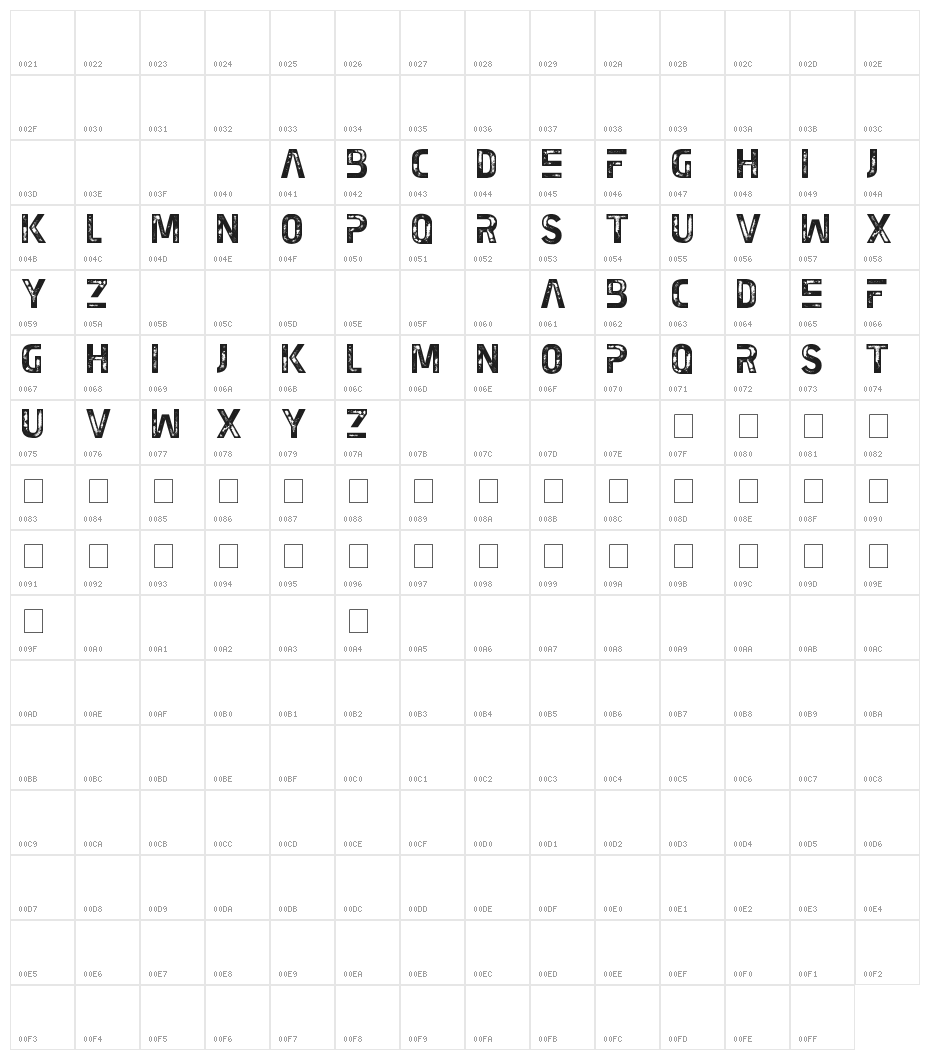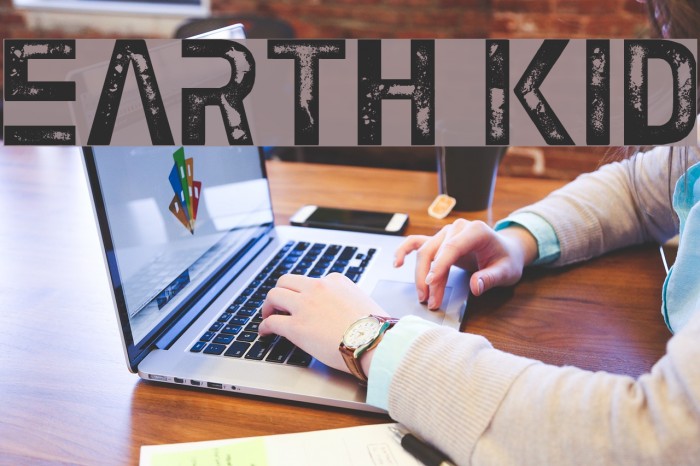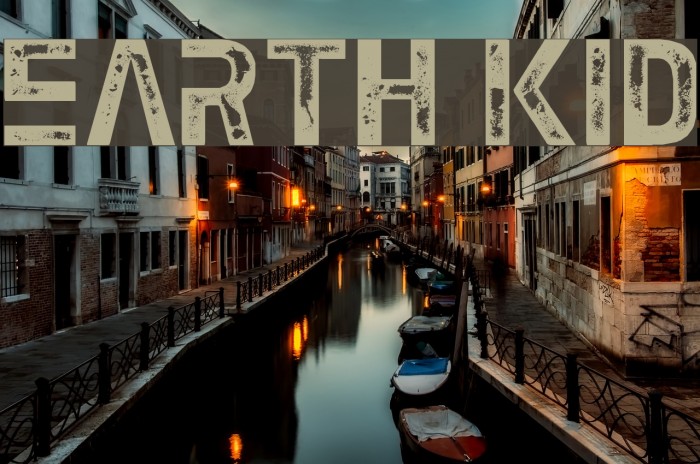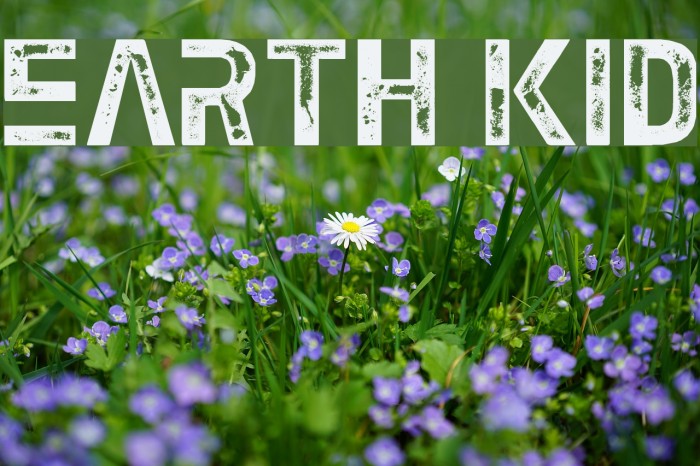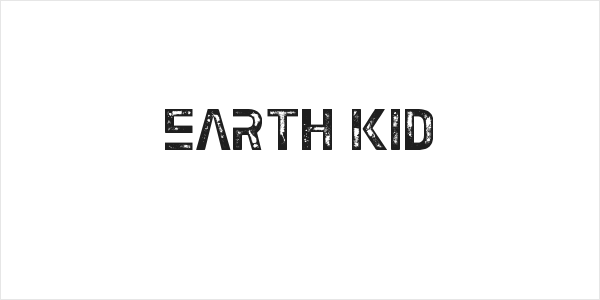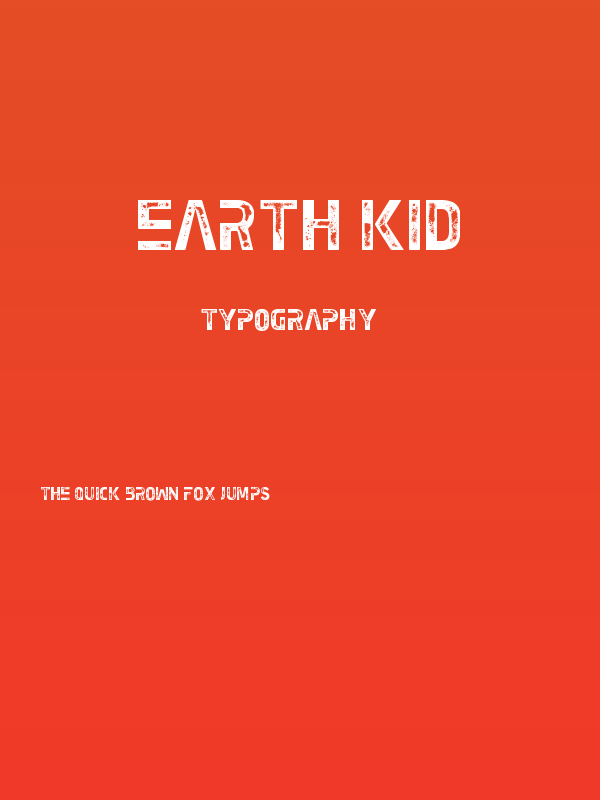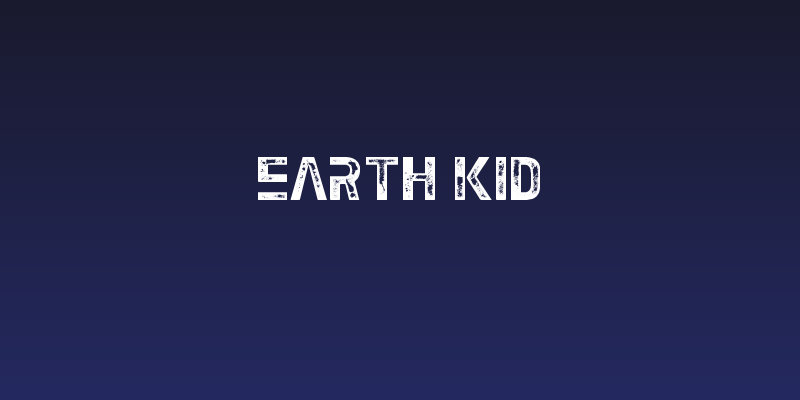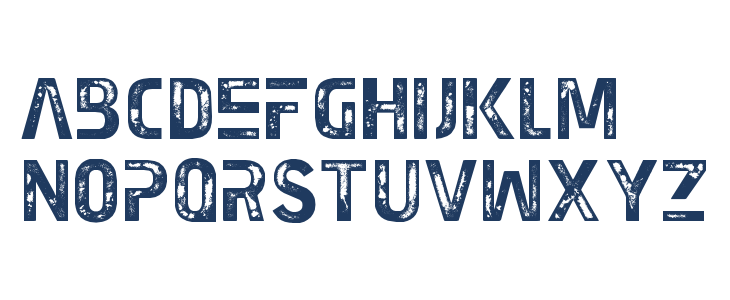
Earth Kid Font
Earth Kid Description
This font features a bold and rugged design with a distressed texture that gives it a worn, vintage look. The characters are all uppercase, with a blocky and geometric structure that conveys strength and stability. The distressed effect varies across each letter, adding a unique, handcrafted feel. This font is ideal for projects that require a strong visual impact, such as posters, logos, or branding materials that aim to convey a sense of adventure or nostalgia. The boldness of the letters ensures readability while the textured appearance adds character and depth.
| Use Case | Logos, Headlines |
| Proposed Projects | Ideal for posters, logos, branding, and any design needing a vintage or adventurous feel. |